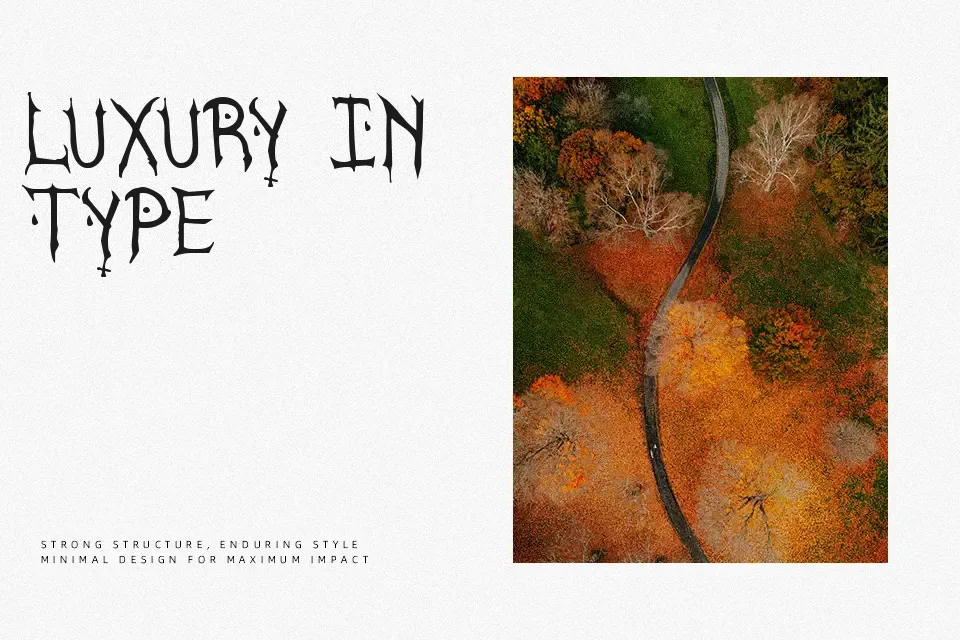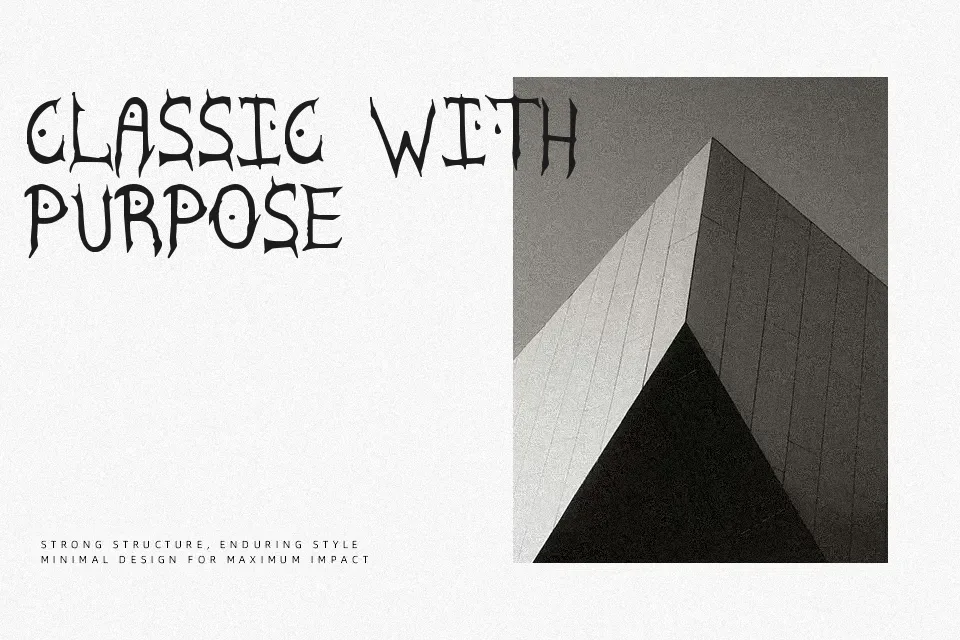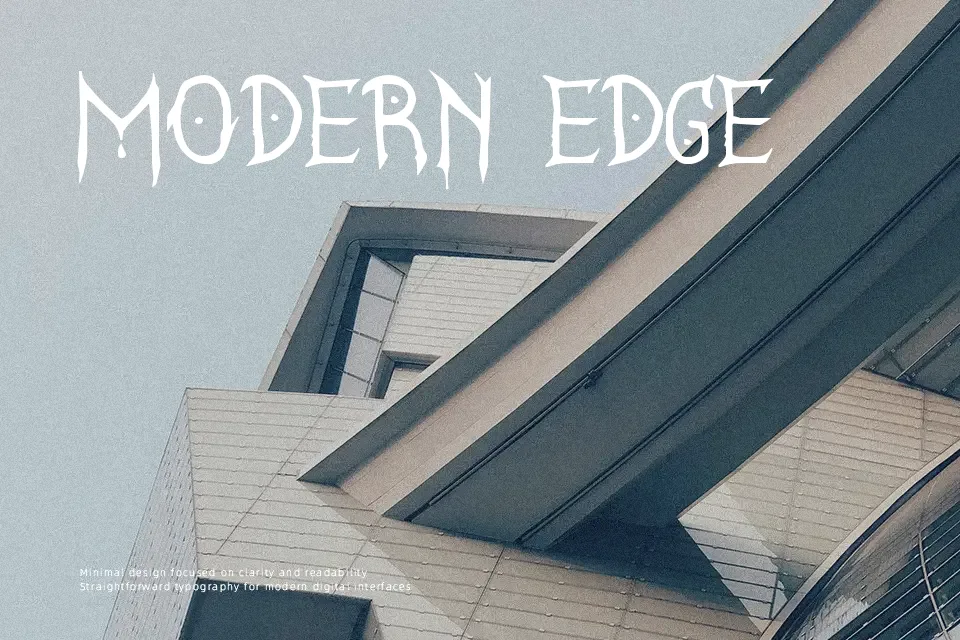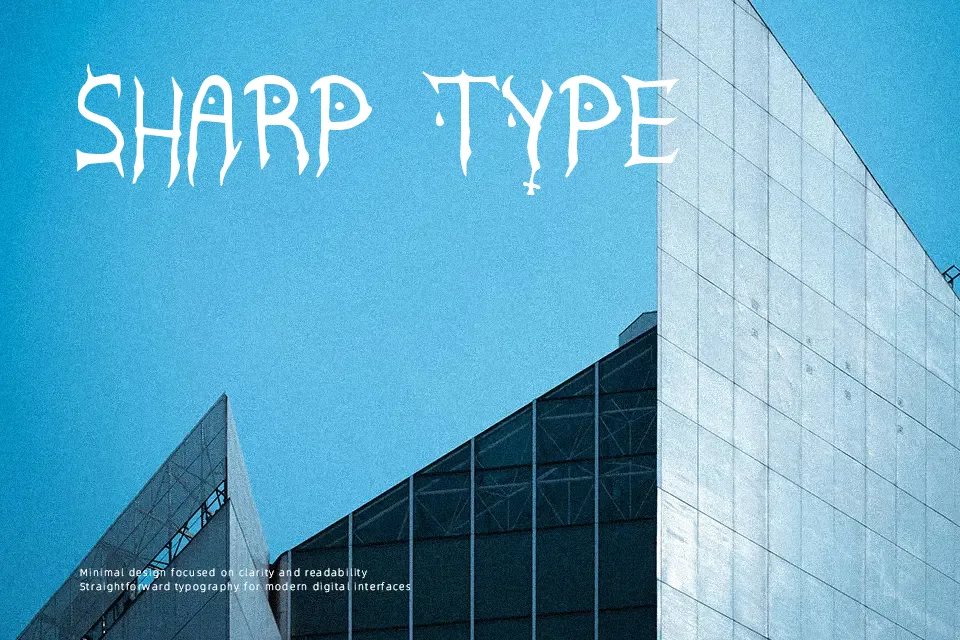
Satanyc Demoniac St Font
Satanyc Demoniac St Font immediately commands attention with its jagged, heavily textured strokes and angular gothic anatomy. Each glyph exhibits irregular distress along the contours, giving the typeface a sharp, abrasive quality that thrives in dark, thematic compositions. Character spacing is relatively tight to maintain visual density, though the exaggerated vertical terminals demand ample line height to prevent collisions. While the font delivers exceptional atmosphere for theatrical movie posters, video game title screens, and seasonal event branding, the complex distressing severely degrades legibility at small sizes. Extended body text becomes visually exhausting, making this display design best reserved strictly for short headlines.
Best For: horror movie title screens, heavy metal album artwork, halloween event flyers, escape room promotional banners
Not Ideal For: continuous editorial body copy, mobile user interface labels, formal business correspondence, compact tabular data
Perfect for film, gaming, and halloween, with a dark and blackletter style.